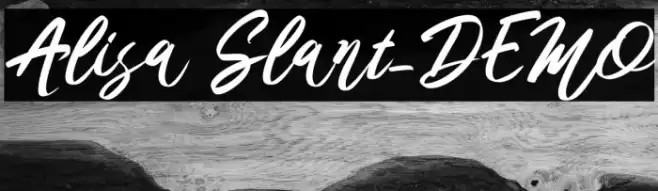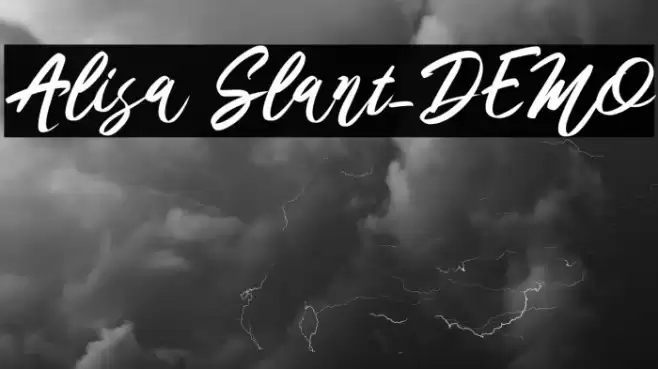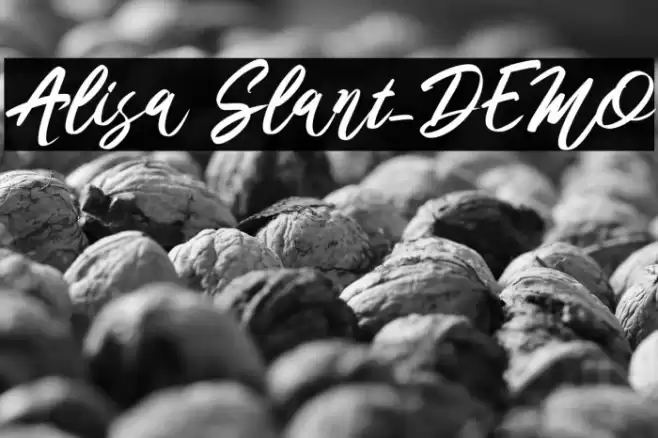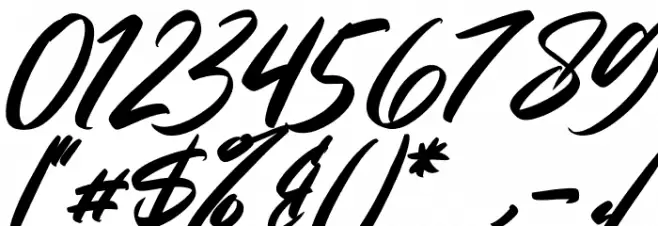
Alisa Slant_DEMO Font
Alisa Slant_DEMO Description
This font exhibits a dynamic and energetic script style with a pronounced slant, giving it a sense of motion and fluidity. The characters are bold and expressive, with thick strokes that vary in width, adding a lively contrast. The uppercase letters are particularly striking, with sweeping curves and loops that enhance the font's dramatic flair. Lowercase letters maintain a consistent flow, contributing to the overall cohesive appearance. The numerals and special characters are equally bold, ensuring they stand out in any design. This font's handwritten quality makes it ideal for projects that require a personal touch.
A bold, slanted script font with dynamic strokes and a handwritten feel from Uncategorized fonts.
- Proposed Projects: Ideal for branding, invitations, greeting cards, and any design that benefits from a personal, artistic touch.
- Character Spacing: Tight
- Use Case: Logos, Headlines, Invitations